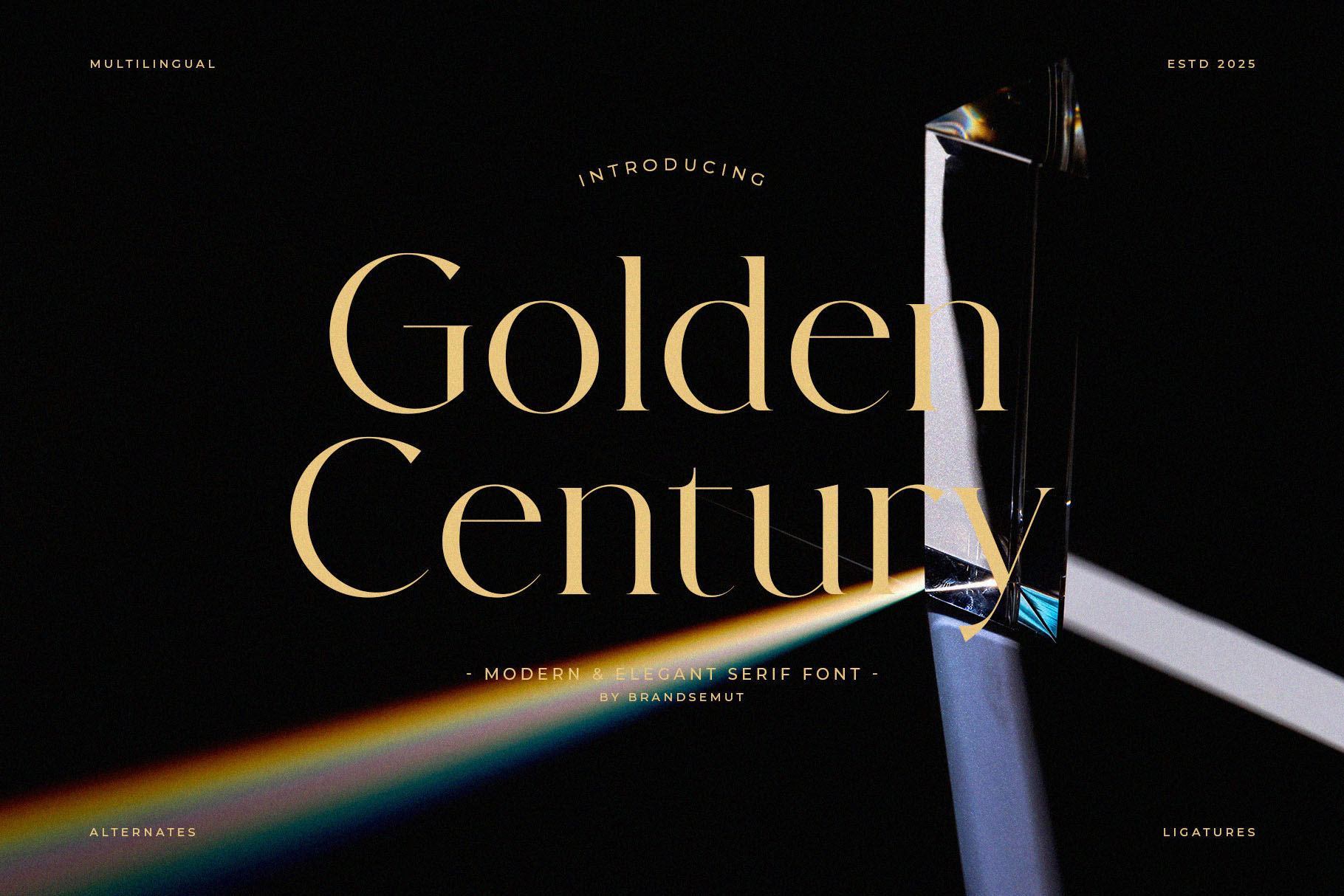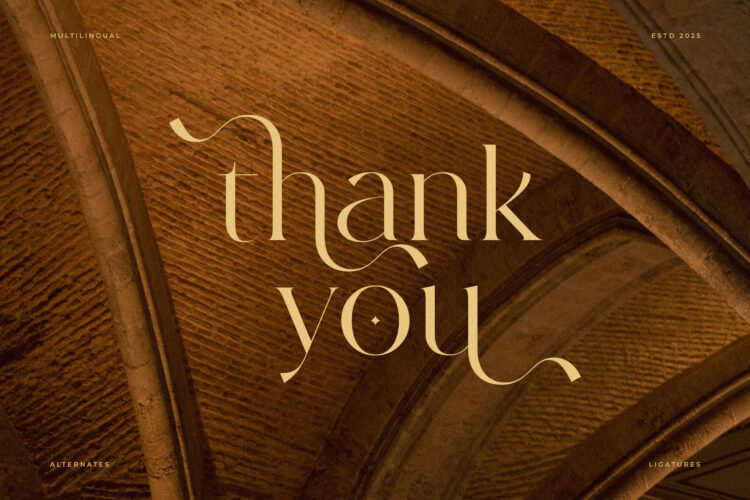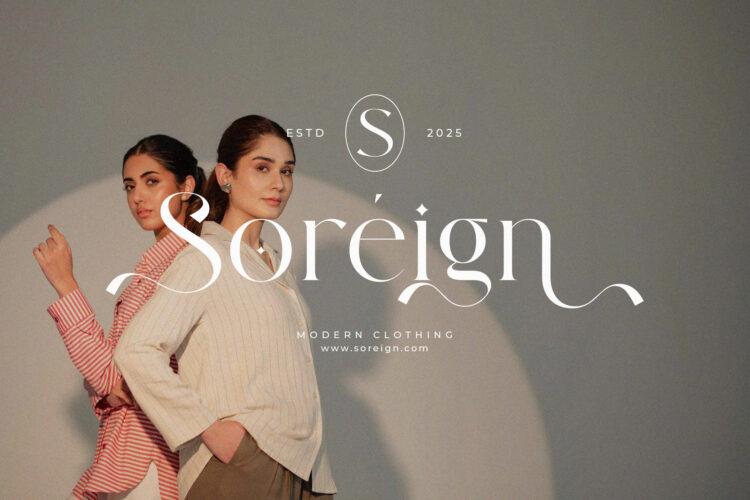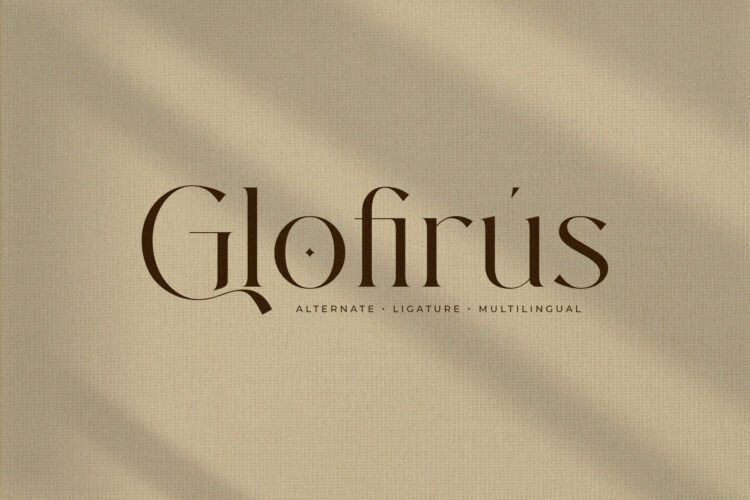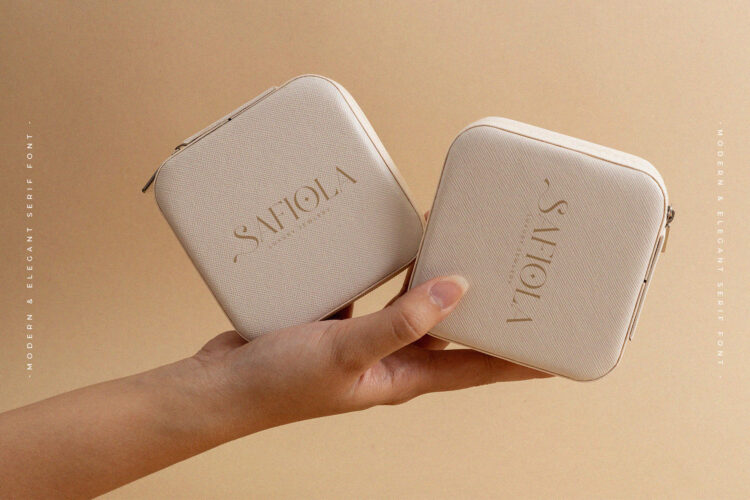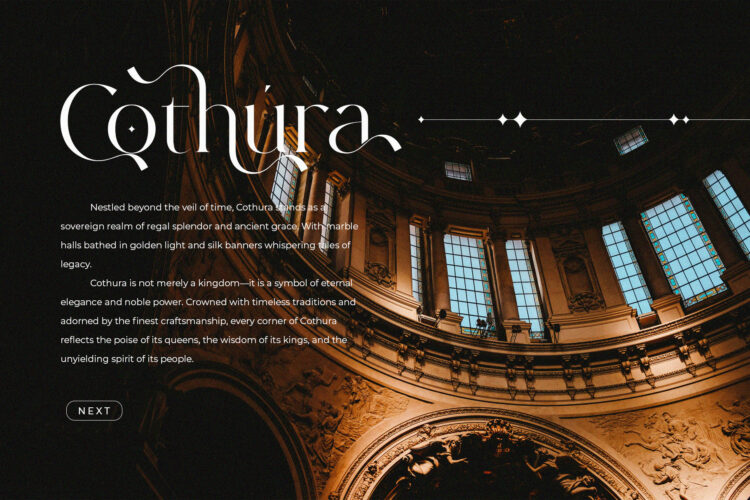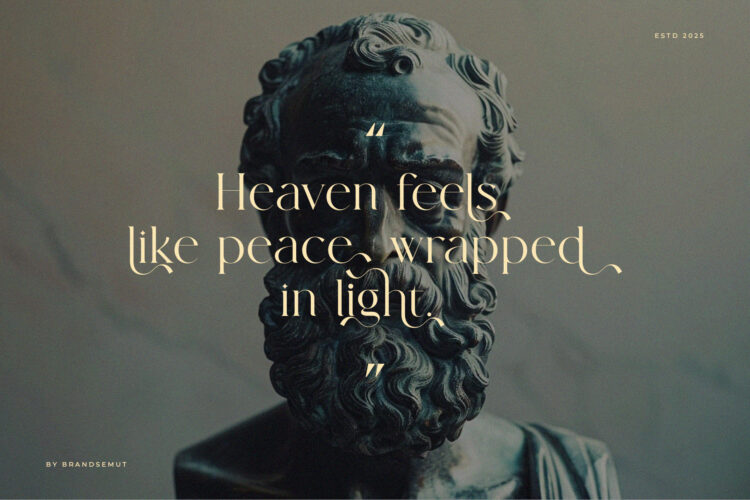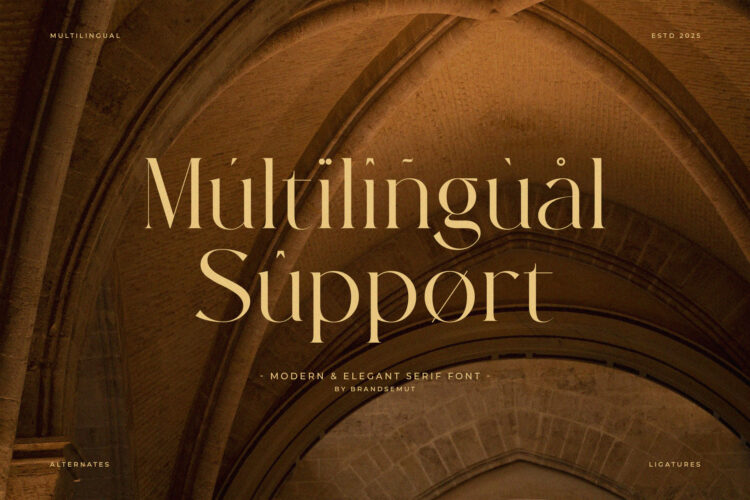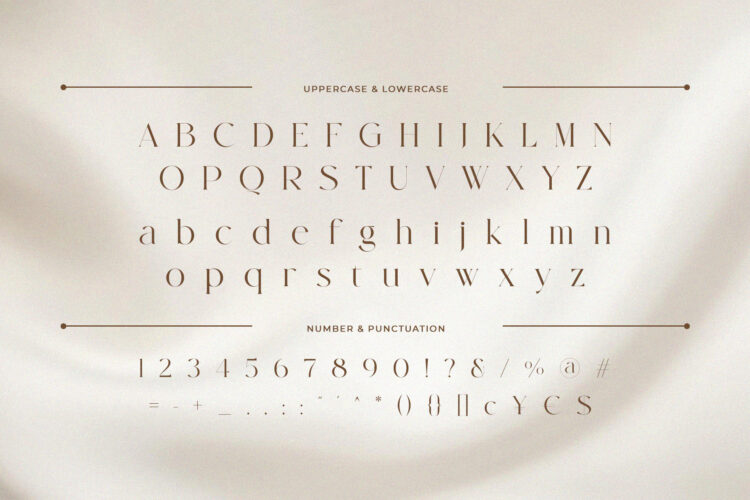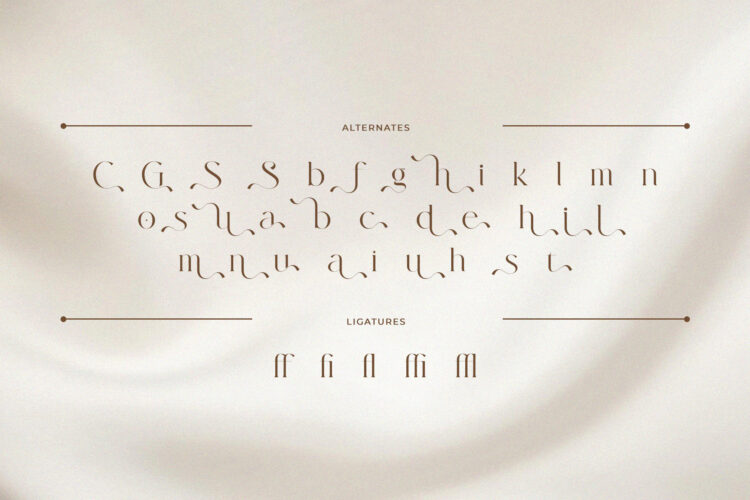
Golden Century – Modern Elegant Serif Font with Uppercase & Lowercase, Alternates & Ligatures for Luxury Branding
Golden Century is a modern and luxurious serif font that fuses timeless elegance with contemporary aesthetics. Featuring complete uppercase and lowercase characters along with sophisticated alternates and ligatures, Golden Century is designed for those who value style, clarity, and grace in their typography.
Ideal for editorial headlines, branding for luxury products, packaging design, and visual storytelling, this font brings a refined voice and a bold presence to any creative project.
Perfect For:
– High-end branding & logo design
– Fashion editorials & magazine covers
– Elegant packaging & product labels
– Wedding stationery & invitations
– Quotes, titles, and advertising materials
Font Features:
– Uppercase & lowercase letters
– Elegant alternates & stylistic ligatures
– High contrast modern serif style
– Multilingual support